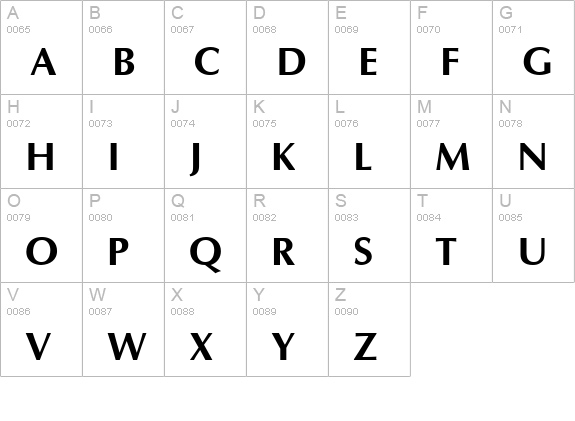
Ottawa Bold Font Details
Ottawa Bold is a strong, high-contrast variant in the Ottawa typeface family \xE2\x80\x94 well suited to headlines, attention-grabbing titles, and strong calls-to-action.
Introducing Ottawa Bold - a modern and stylish font that exudes confidence and charisma. With its bold strokes and clean lines, Ottawa Bold is perfect for making a statement in your designs. Whether you're creating eye-catching headlines, striking logos, or sleek branding materials, this font will help you stand out from the crowd. What's even better is that Ottawa Bold is available for free download at FontsMarket.com. This means you can easily access this versatile font and use it in your projects without any cost. Don't miss out on the opportunity to elevate your designs with Ottawa Bold - download it now and unleash your creativity!